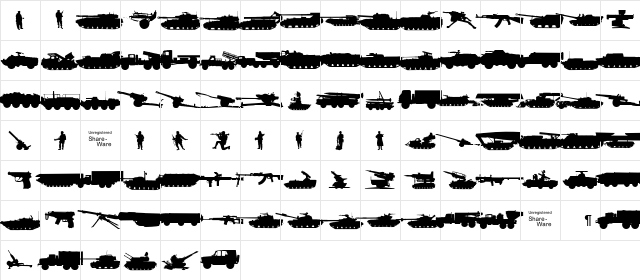
Soviet-Kit Generic
Design Context for Soviet-Kit Typeface
Soviet-Kit is a composed and adaptable typeface that performs quietly and consistently across a wide range of design contexts.
Pro Tip: Use Soviet-Kit in both headline and body roles to test its range before committing to a single application.